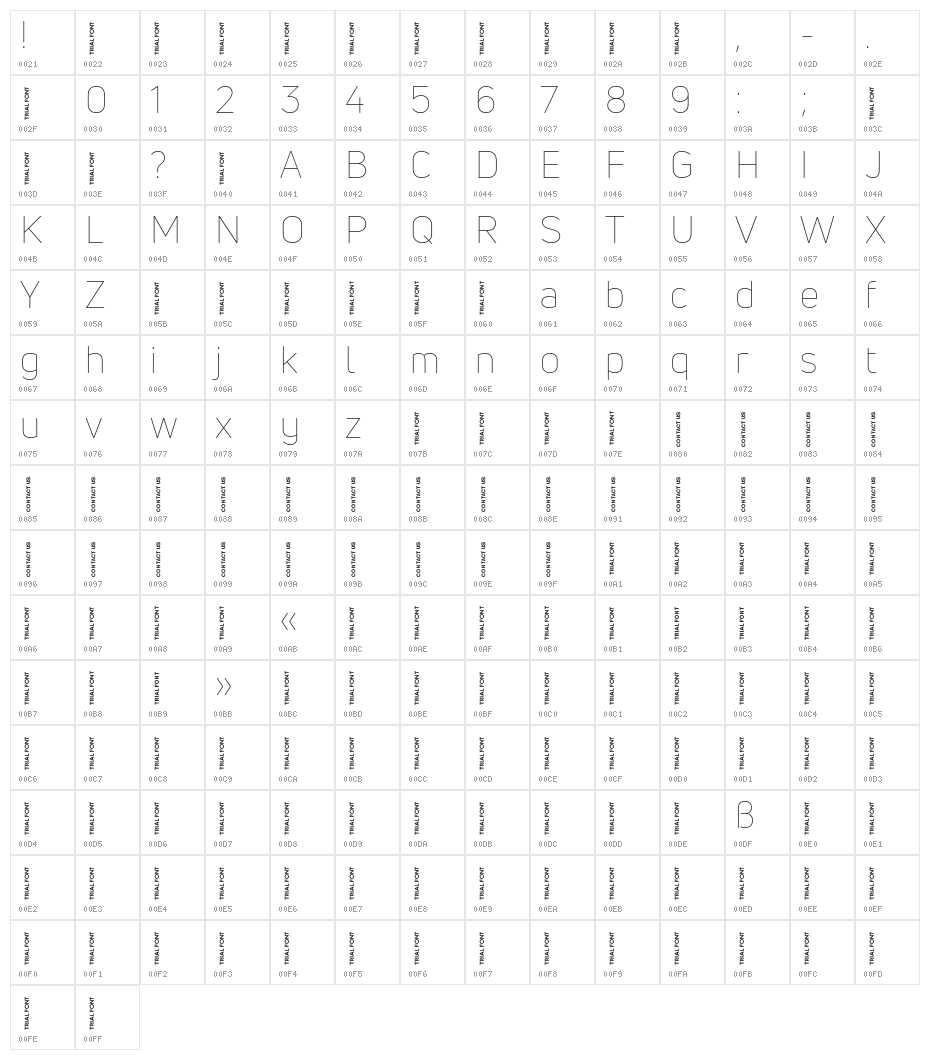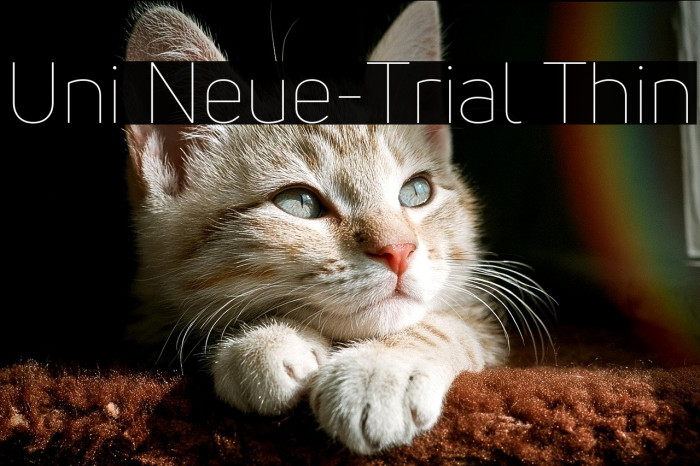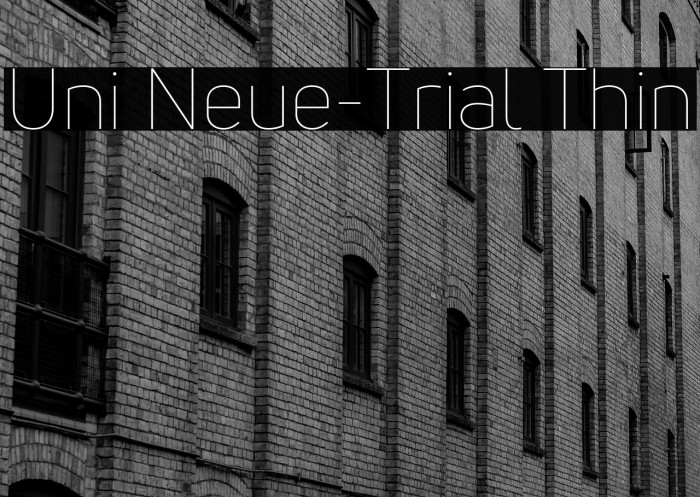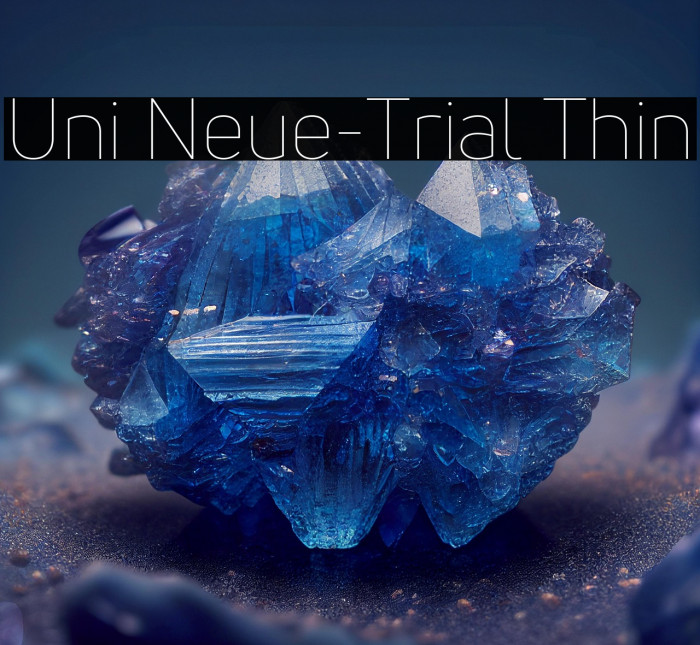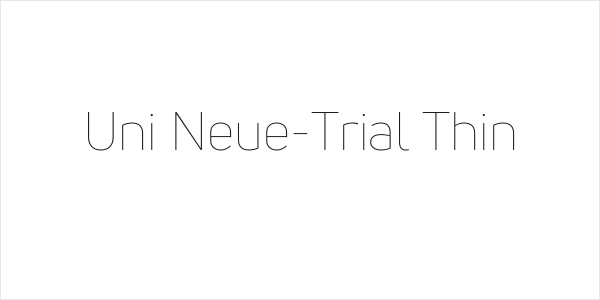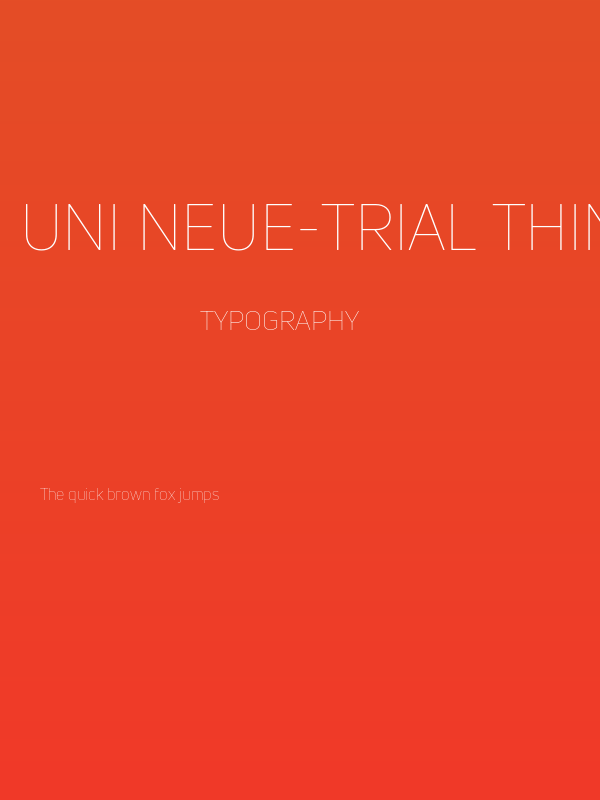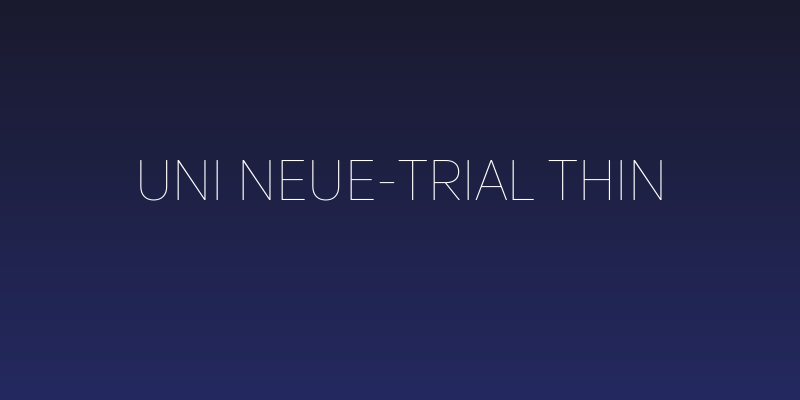
Uni Neue-Trial Thin Font
Uni Neue-Trial Thin Description
This font features a clean and modern sans-serif design with a thin weight, offering a sleek and minimalist aesthetic. The characters are well-proportioned with a uniform stroke width, providing a sense of balance and harmony. The uppercase and lowercase letters are distinct yet cohesive, making it versatile for various design needs. The numerals are clear and legible, while the special characters maintain the overall style. Its simplicity and elegance make it suitable for contemporary design projects.
| Proposed Projects | Ideal for branding, web design, editorial layouts, and minimalist posters. |